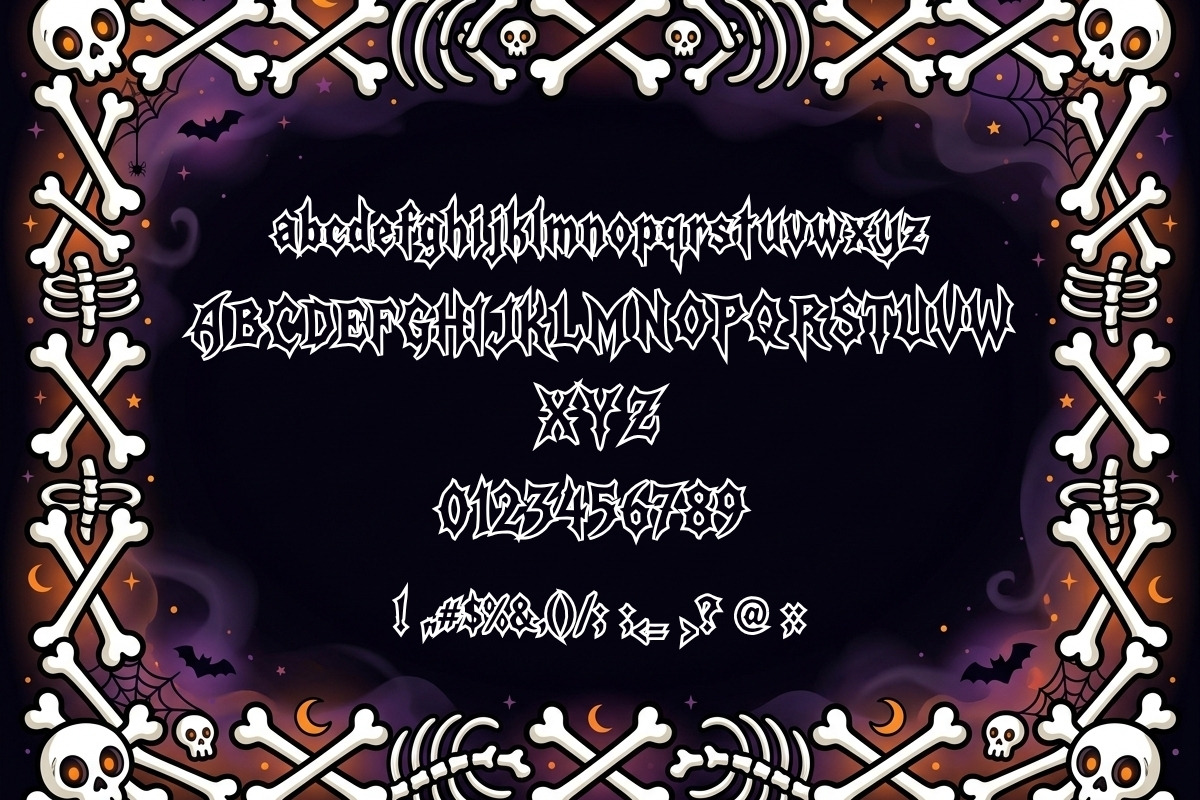
Daggerthorn Gothic — Slasher Blade
Arm your Halloween typography with Daggerthorn Gothic — an uncompromising, slasher blade Halloween blackletter display typeface built for extreme visual terror and cinematic impact. Featuring razor-pointed stiletto finials, chiseled diamond facet notches, four-pointed chaos spikes, and dagger-thrust spurs on every character, Daggerthorn Gothic cuts through visual noise like a blade in the dark.
Engineered specifically for Halloween horror films, haunted trail scream parks, death metal bands, dark streetwear labels, tactical action video games, and combat fantasy titles, Daggerthorn Gothic delivers unmatched adrenaline. Its ultra-clean Bézier nodes guarantee razor-sharp rendering at extreme billboard scale as well as intricate small embroidery, screen printing, and vinyl cutting.
Slasher Blade & Stiletto Geometry: Razor-sharp blade finials and chiseled diamond notches deliver instant Halloween horror attitude.
Maximum High-Impact Visibility: Designed to dominate horror movie posters, Halloween album art, and streetwear chest prints.
Zero Character Collisions: Tight sidebearings calibrated to maintain dense blackletter cadence without messy overlaps.
Full 93-Glyph Repertoire: Complete Uppercase (A–Z), Lowercase (a–z), Numerals (0–9), and weaponized punctuation.
Character Coverage: Full Uppercase (A–Z), Lowercase (a–z), Numerals (0–9), and full punctuation suite (! @ # $ % & * ( ) _ + - = [ ] { } | ; : , . < > / ? ' ")